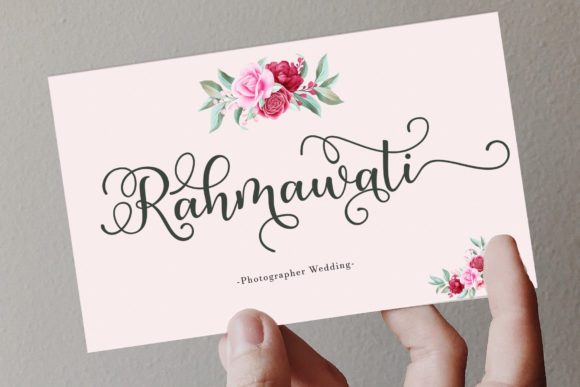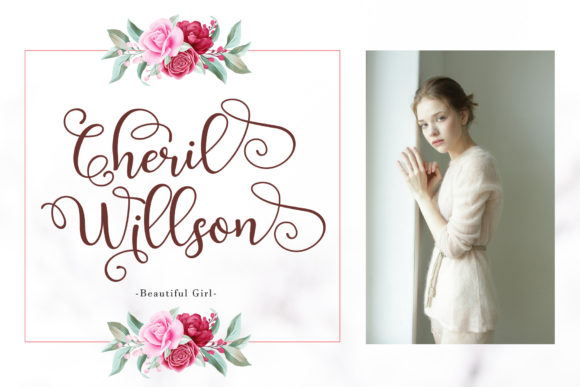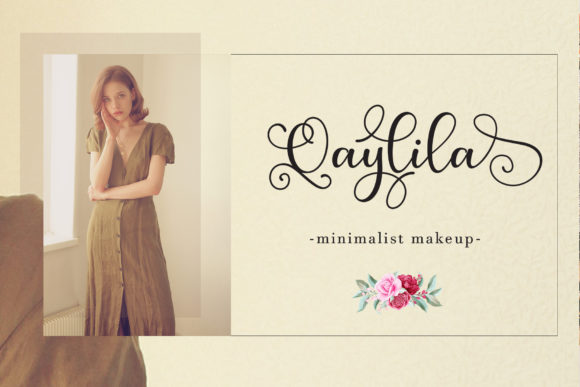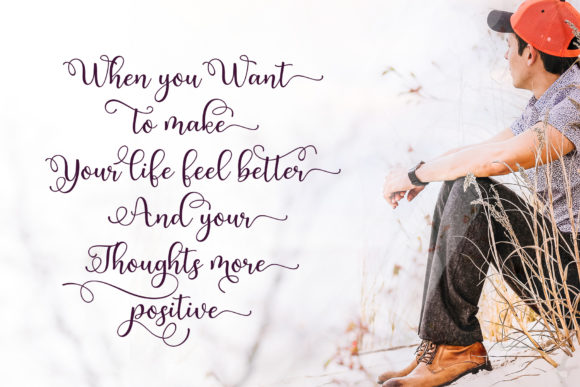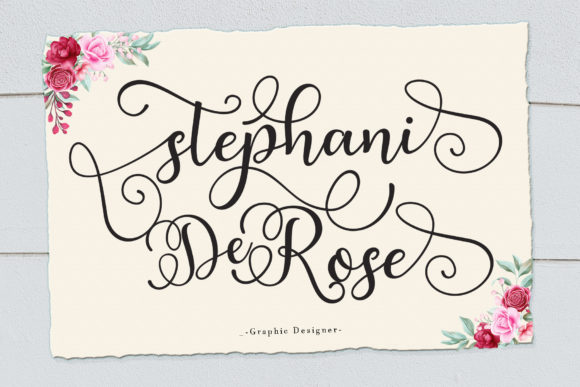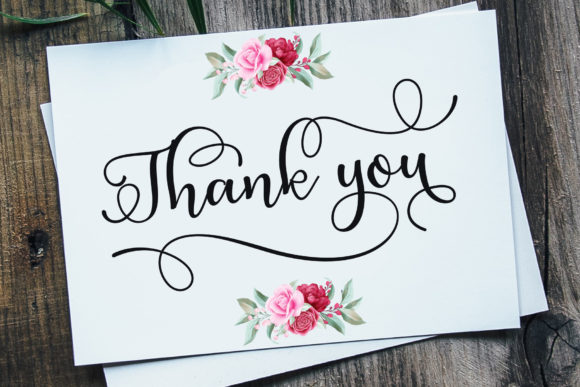
Have you ever been working on a design and suddenly, the perfect font pops into your head? It’s like a lightbulb moment that changes everything. For many designers, that moment is when they discover the Bebilya Font. This lovely and playful handwritten font is a game-changer for any creative project that needs a personal touch.
| 👤 Author | Sulthan Studio |
Bebilya Font is the perfect choice for projects like wedding invitations, postcards, quote designs, and more. Its unique, whimsical style adds a touch of elegance and sophistication to any design. As a designer, you’ll appreciate the versatility and expressiveness of Bebilya Font, making it a valuable addition to your toolkit.
Bebilya Font Key Features
- Unique Characteristics: Bebilya Font features a unique blend of modern and vintage design elements, making it a great choice for designers who want to add a touch of sophistication to their work.
Bebilya Font Review
I recently had the chance to work with the Bebilya font, and I must say it’s a mixed bag. Here are my thoughts on what works and what doesn’t.
- Unique Character: The Bebilya font has a distinct, playful feel to it that’s perfect for creative projects or branding.
- Legibility: Despite its quirky design, the font is surprisingly legible, making it a great choice for body text.
- Customization Options: The font comes with a range of customization options, including ligatures and swashes, which can add a lot of personality to your designs.
- Overuse: The font’s playful design can quickly become overwhelming if overused, so be sure to use it sparingly.
- Lack of Consistency: Some of the font’s letterforms can feel inconsistent, which may detract from the overall design.
Overall, I think the Bebilya font is a solid choice for designers looking for a unique, creative font. However, it’s not without its limitations, and I would caution against overusing it. With some careful consideration and restraint, the Bebilya font can be a great addition to your design toolkit.
Tips for Getting the Most Out of Bebilya Font
Use Bebilya Font for creative and artistic projects, such as:
- Custom illustrations and graphics
- Brand identity and logo design
Remember to adjust the font size and style to achieve the desired effect.
Bebilya Font is ideal for:
- Handwritten and cursive text